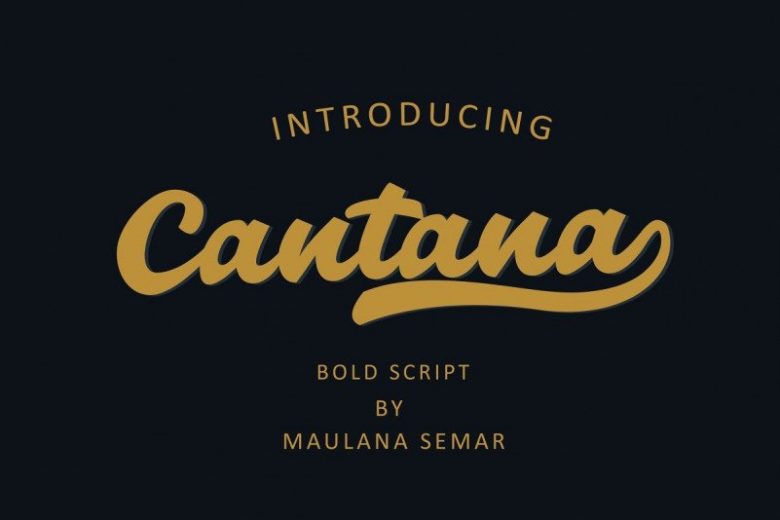
Cantana Font
Cantana Font is a bold script, with a classy attractive look and feel. This font is ideal for branding and decorate your any project, are perfect for wedding invitation or your blog. Also with their help, you can create a logo or beautiful frame for your home.
Or just use for your small business, book covers, stationery, marketing, magazines and more. Special for you I prepared a lot swash, ligatures and alternates.